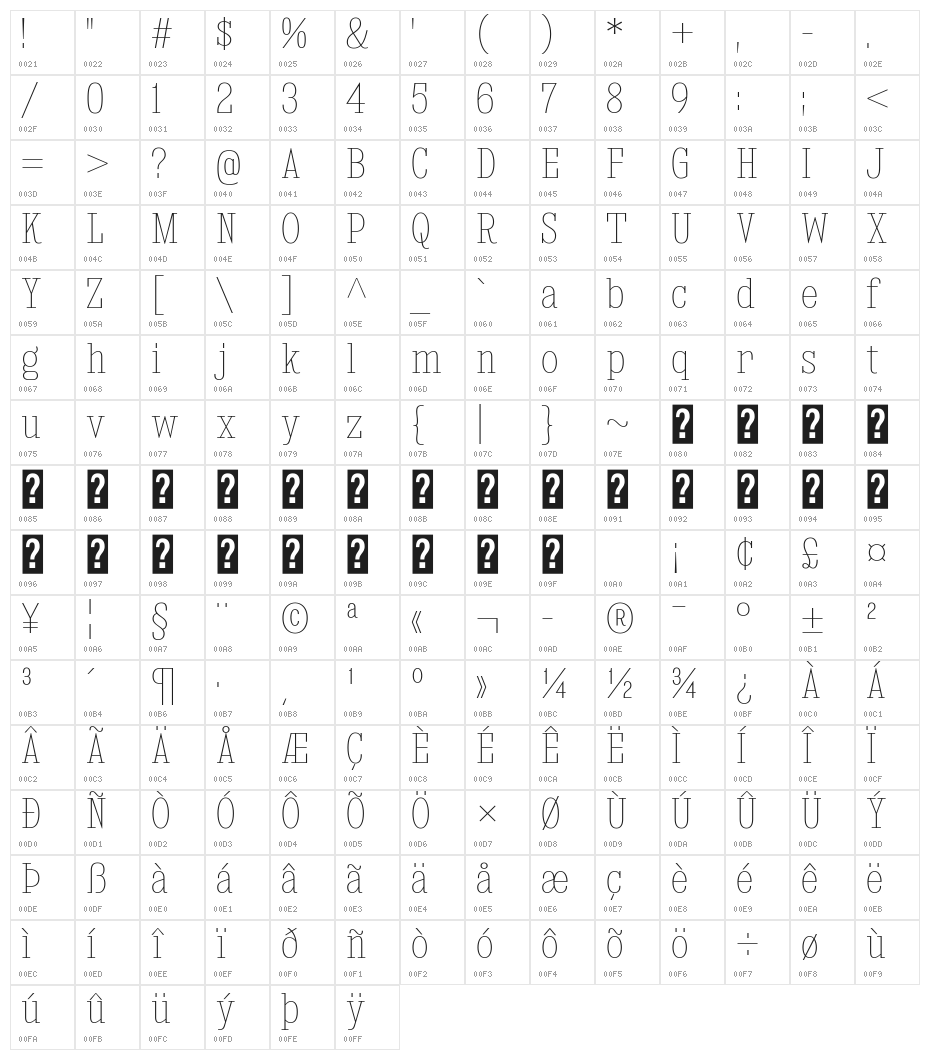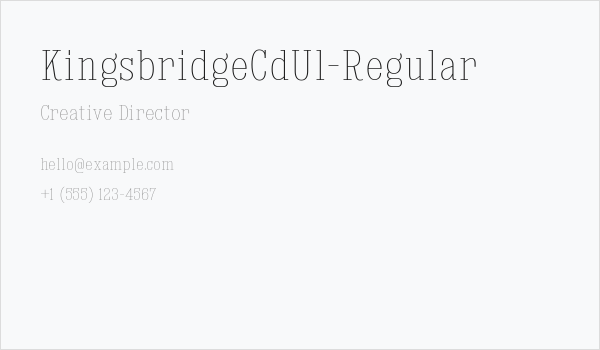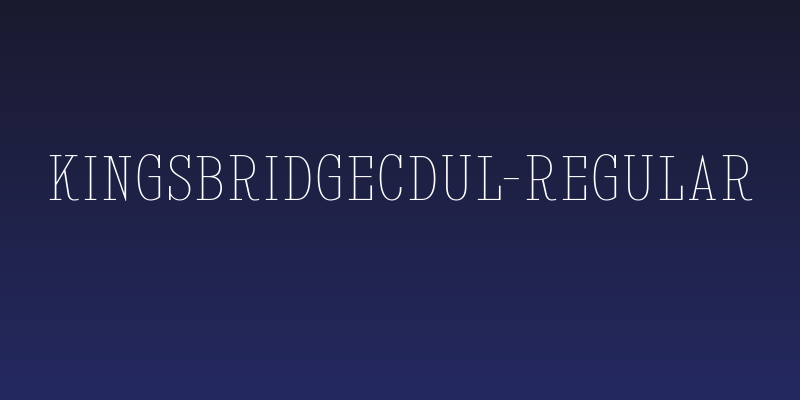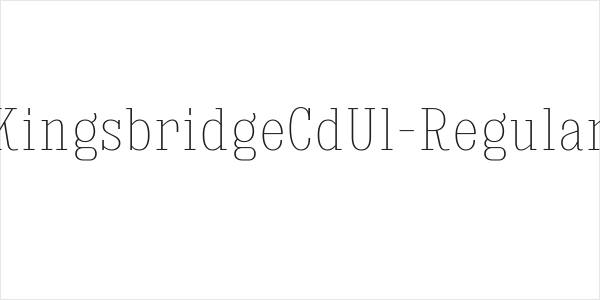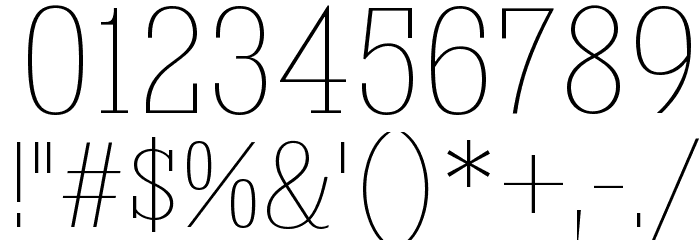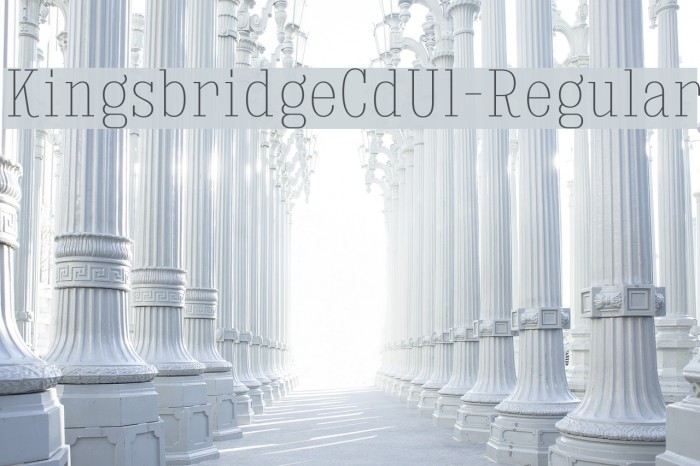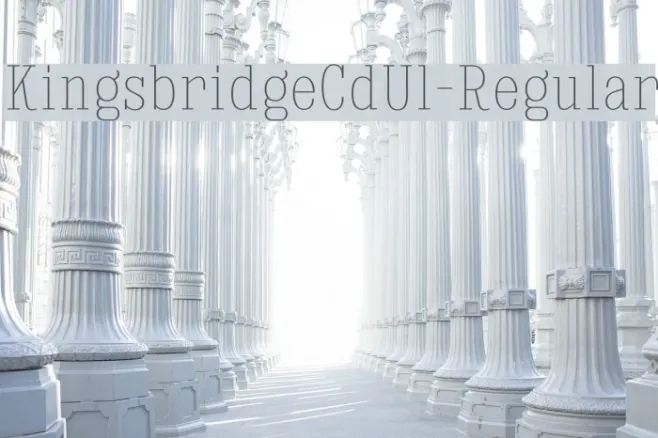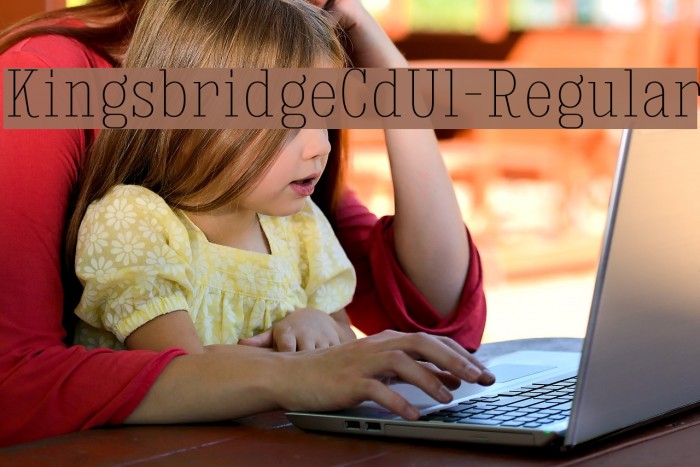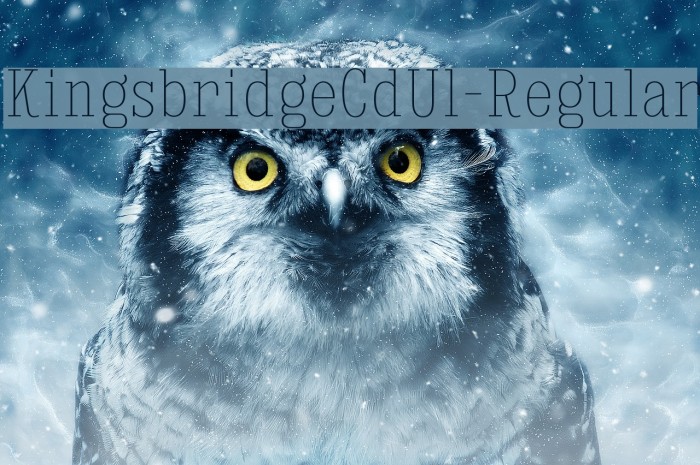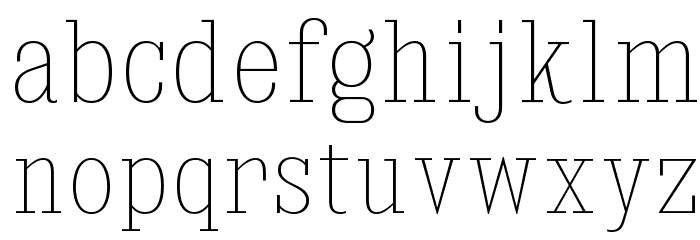
KingsbridgeCdUl-Regular Font
KingsbridgeCdUl-Regular Description
This font features a clean and elegant design with thin, elongated letterforms that convey a sense of sophistication and modernity. The uppercase letters are tall and narrow, while the lowercase letters maintain a consistent height, creating a harmonious balance. The numerals are proportionate and align well with the overall style, making them easily readable. Special characters are distinct and integrate seamlessly with the alphabetic characters. The font's thin strokes and minimal contrast give it a refined and airy appearance, suitable for various design applications.
| Proposed Projects | Ideal for fashion magazines, luxury branding, editorial layouts, and minimalist design projects. |